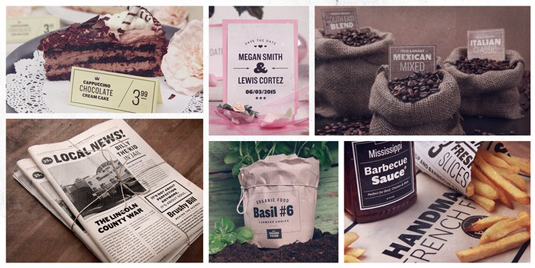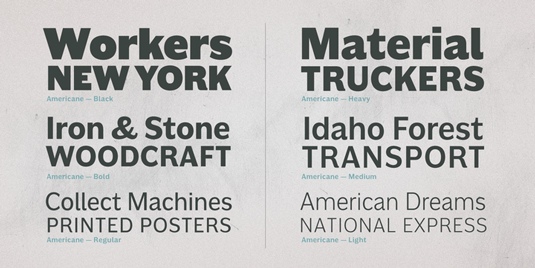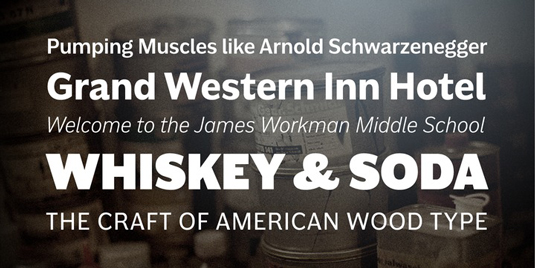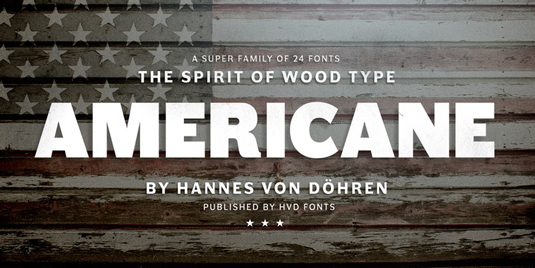
Font of the day: Americane
Every day we showcase the best fonts on the web. Today it's Americane by Hannes von Döhren.
Americane by Hannes von Döhren
Kicking off our font of the day posts this week is Americane by type designer Hannes von Dohren. Available from MyFonts, Americane is described as being 'strong, decided and edgy. Inspired by the old wood type specimen books, this font delivers some glorious vibes of the handcrafted values from the pioneers'.